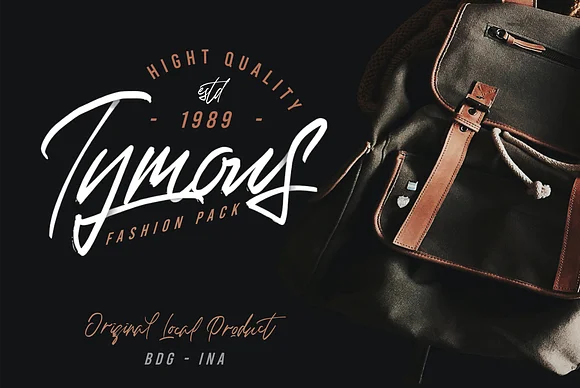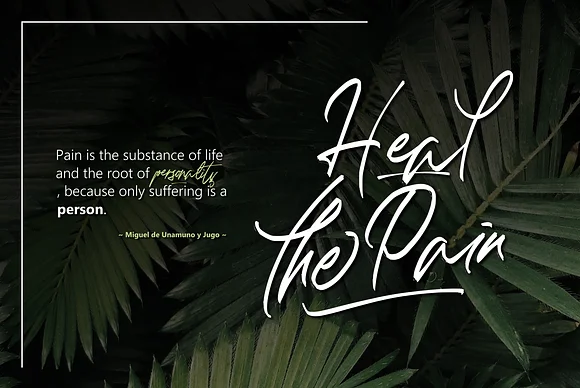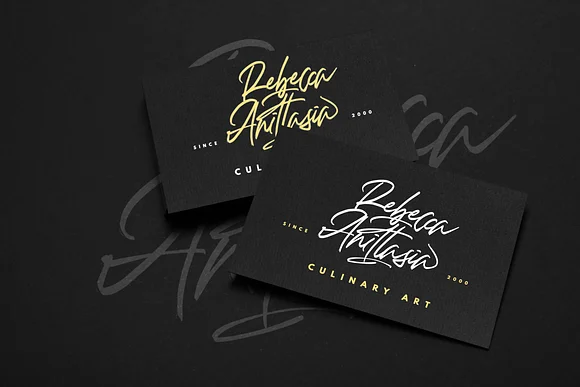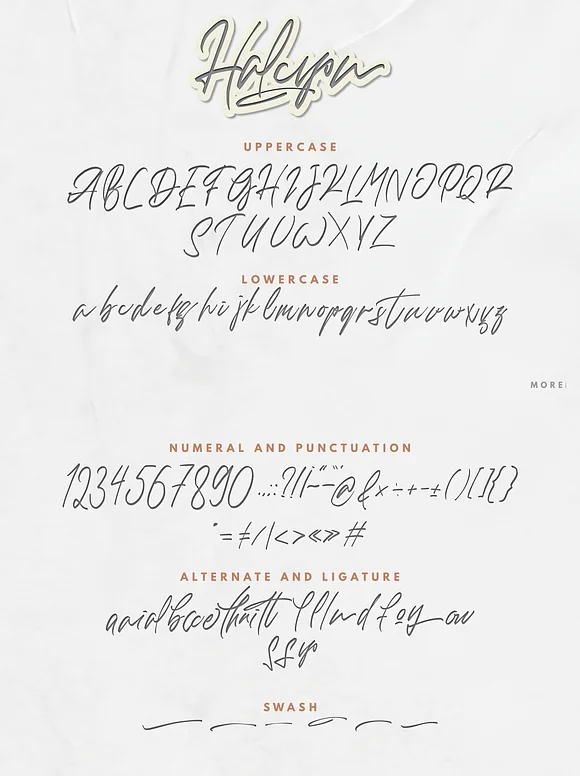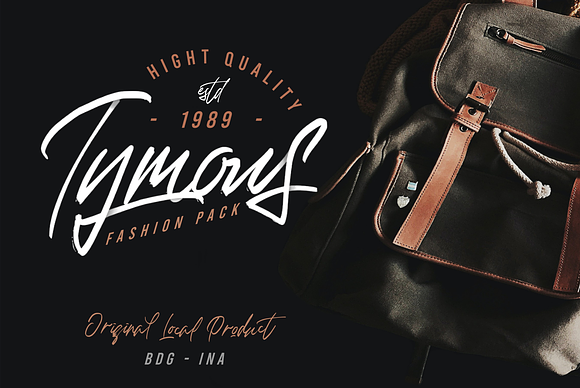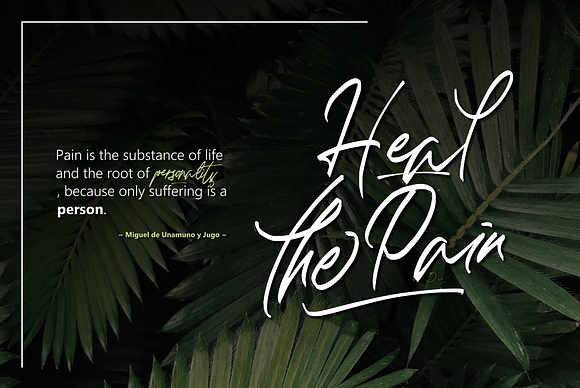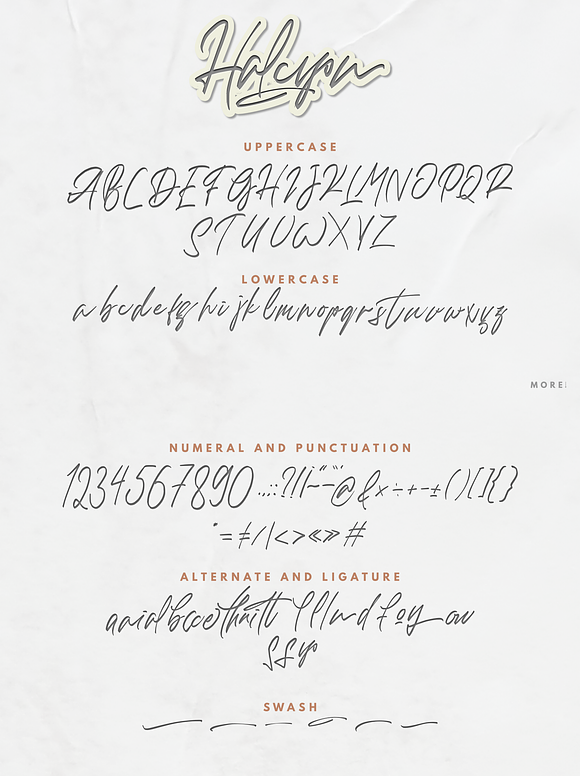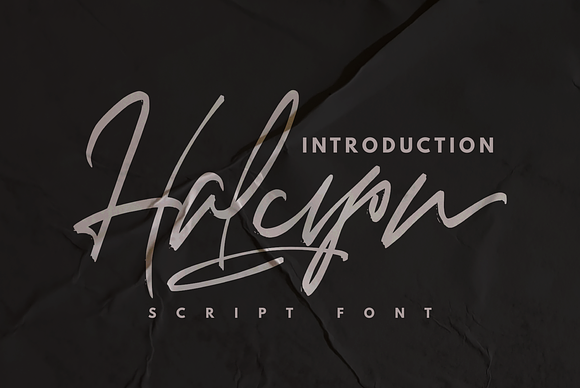
Halcy Script Font Font
There is a particular satisfaction in finding a typeface that delivers refined proportions and careful stroke modulation without compromise. Halcy Script consistently provides it. The typeface brings an elegant, calligraphic sensibility to a broad range of creative disciplines, with strong typographic hierarchy support that holds up whether the work is print-first or screen-first.
In practice, Halcy Script proves particularly effective for brand identity systems, social media graphics, fashion editorials, logo design, high-end cosmetic packaging. Designers reaching for it find that the type decisions feel resolved rather than laboured — a useful quality when client timelines are tight.
The range of applications extends to environmental graphics, bridal materials, event signage, web design. That breadth is deliberate: the proportions and spacing were stress-tested across a wide range of mock briefs before the typeface was finalised.
The consistent rhythm of Halcy Script across a full paragraph creates the kind of even grey value that makes extended reading comfortable, a detail that matters more in long-form content than its subtlety might suggest.
Graphic designers working on identity systems find Halcy Script a reliable choice for projects that demand both personality and restraint. The design avoids the self-conscious quirkiness that dates quickly, settling instead for considered distinctiveness that holds up over time.